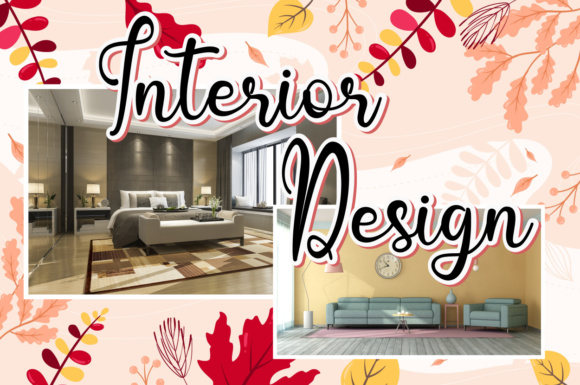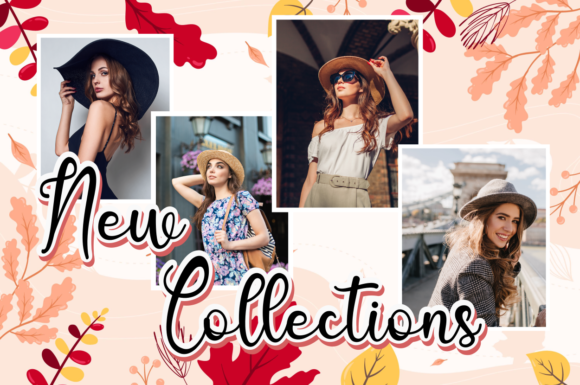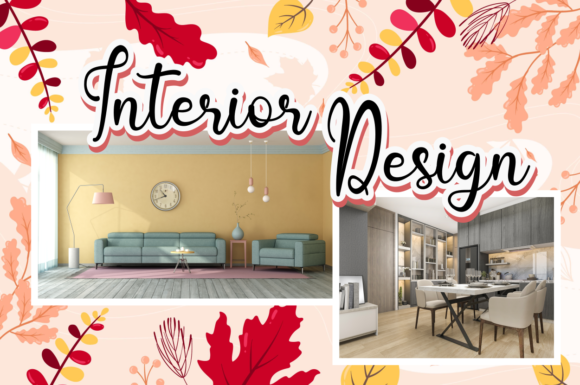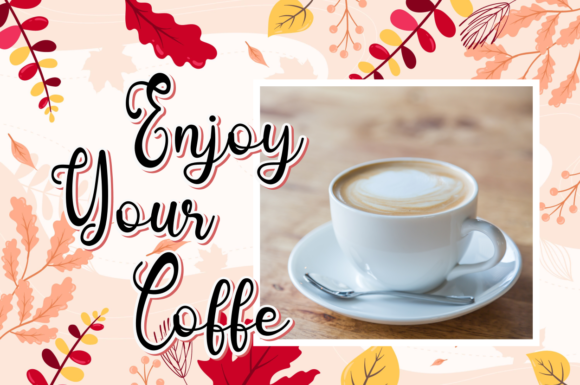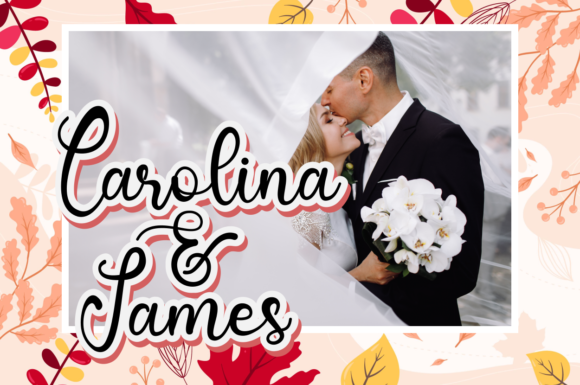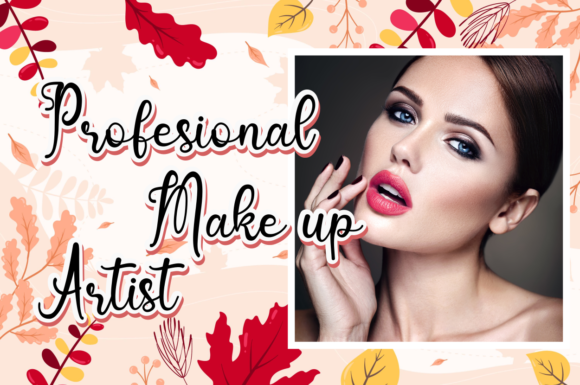
Introducing Anggitha Font: The Perfect Blend of Modernity and Handmade Elegance
In the world of typography, fonts play a crucial role in conveying the tone and personality of a brand or design. For designers and crafters looking for a unique and stylish script font, Anggitha Font is an exciting new addition that is sure to captivate. This modern script font boasts a handmade calligraphy style, complete with decorative characters and a dancing baseline, making it perfect for a wide range of creative projects.
What Makes Anggitha Font So Special?
Anggitha Font is a fresh and modern script that combines the elegance of handmade calligraphy with the playfulness of a dancing baseline. Its unique characteristics make it an excellent choice for designers and crafters looking to add a touch of sophistication and whimsy to their work. Here are some of the key features that set Anggitha Font apart:
• Handmade Calligraphy Style: Anggitha Font features a beautiful, handmade calligraphy style that gives it a personal and artistic feel.
• Decorative Characters: The font includes a range of decorative characters that can be used to add a touch of elegance and sophistication to any design.
• Dancing Baseline: The dancing baseline of Anggitha Font gives it a playful and dynamic feel, making it perfect for designs that require a bit of movement and energy.
Perfect for a Wide Range of Creative Projects
Anggitha Font is incredibly versatile and can be used for a wide range of creative projects, including:
• Invitations: Whether you’re planning a wedding, birthday party, or other special occasion, Anggitha Font is the perfect choice for creating beautiful and elegant invitations.
• Greeting Cards: Add a touch of personality and style to your greeting cards with Anggitha Font, perfect for birthdays, holidays, and other special occasions.
• Branding Materials: Use Anggitha Font to create unique and memorable branding materials, such as logos, business cards, and letterheads.
• Business Cards: Stand out from the crowd with Anggitha Font, perfect for creating stylish and professional business cards.
• Quotes: Add a touch of elegance and sophistication to your quotes and posters with Anggitha Font.
• Posters: Create eye-catching posters with Anggitha Font, perfect for advertising, promoting events, or showcasing your work.
Why Designers and Crafters Love Anggitha Font
Designers and crafters love Anggitha Font for its unique blend of modernity and handmade elegance. Here are some reasons why:
• Unique and Exclusive: Anggitha Font is a one-of-a-kind font that will set your designs apart from the rest.
• Elegant and Sophisticated: The font’s handmade calligraphy style and decorative characters give it an elegant and sophisticated feel.
• Playful and Dynamic: The dancing baseline of Anggitha Font adds a playful and dynamic touch to any design.
Anggitha Font is a stunning new script font that is sure to captivate designers and crafters alike. Its unique blend of modernity and handmade elegance makes it perfect for a wide range of creative projects, from invitations and greeting cards to branding materials and posters. With its decorative characters, dancing baseline, and elegant feel, Anggitha Font is a must-have for anyone looking to add a touch of sophistication and whimsy to their designs.